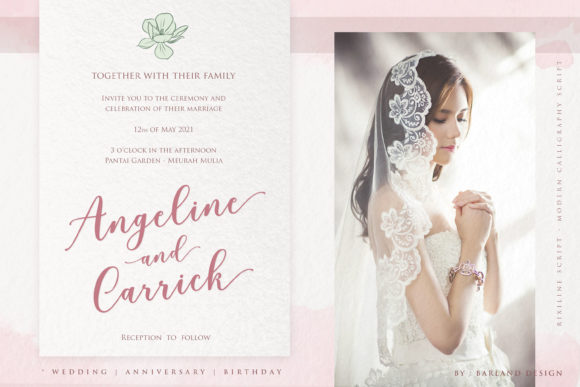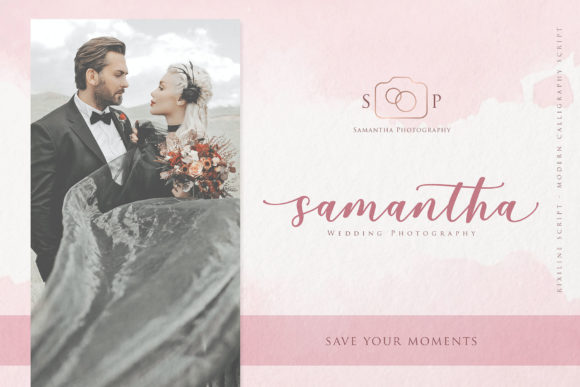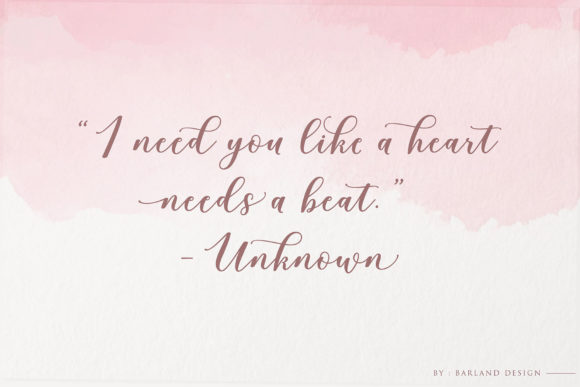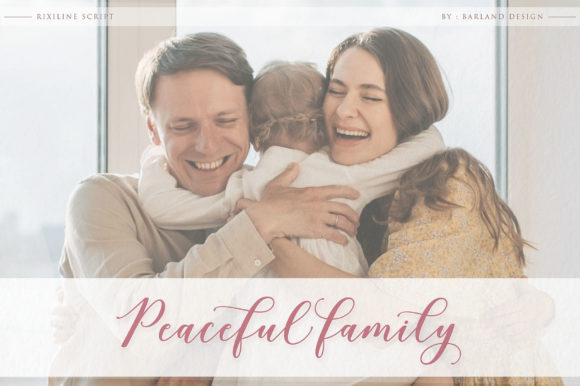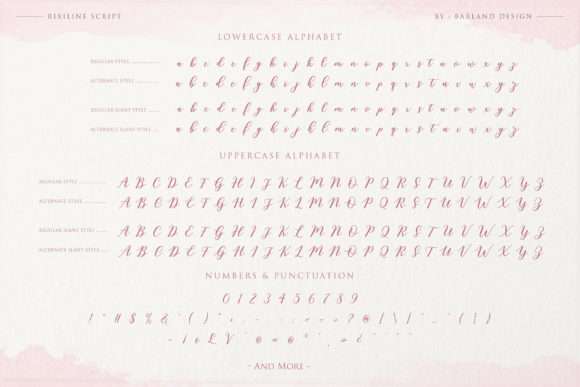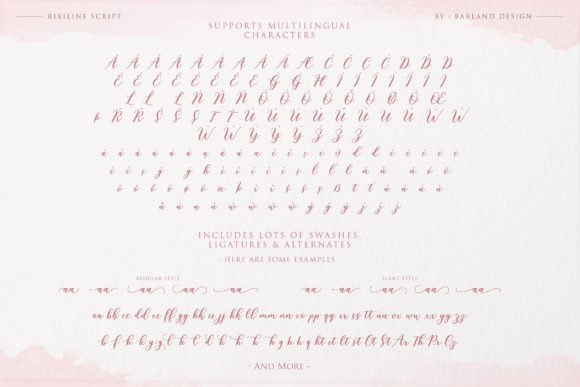
Introduction to Rixiline Script Font
Have you ever found yourself staring at a blank page, eager to bring a creative project to life, but struggling to find the perfect font to match your vision? We’ve all been there. As designers, we know how crucial the right font can be in elevating our work and making it truly stand out. That’s why we’re excited to introduce you to the Rixiline Script Font, a light and ravishing script font that’s sure to add a touch of magic to your next design.
This beautiful font features characters that dance along the baseline, creating a sense of movement and fluidity that’s perfect for a variety of design ideas. With its high-quality design and PUA encoding, you’ll have access to all of the gorgeous glyphs and swashes, making it easy to customize and add a personal touch to your work. Whether you’re working on a project with a transparent background or looking for a design resource to elevate your next creative project, the Rixiline Script Font is an invaluable addition to your toolkit.
Key Features of Rixiline Script Font
- Unique, hand-drawn design perfect for creative projects requiring a high-quality, elegant touch.
Honest Review: Rixiline Script Font
I recently had the chance to work with the Rixiline Script Font and I must say, it’s a great addition to any designer’s toolkit. The high-quality design is perfect for creative projects where a touch of elegance is needed.
Here are some of the things that work well with the Rixiline Script Font:
- ✨ Beautiful, cursive script that’s perfect for headings and titles.
- ✨ Highly legible, even at small font sizes.
- ✨ Supports transparent background, making it easy to use in conjunction with other design elements.
- ⚠️ Limited character set, which may not be suitable for long blocks of text.
- ⚠️ Not suitable for use in small sizes or on low-resolution displays.
Overall, I’m really impressed with the Rixiline Script Font. It’s a great free download that’s perfect for designers looking to add some flair to their creative projects. It’s definitely a valuable design resource that I’ll be using again in the future.
The Rixiline Script Font is a high-quality design resource perfect for creative projects that require a touch of elegance and sophistication. With its unique, handwritten style, this font is ideal for projects that need a personal and exclusive feel.
Getting the Most Out of the Font
To get the most out of the Rixiline Script Font, try using it on a transparent background to create a beautiful, layered design. You can also use it in combination with other fonts to add depth and interest to your project.
The Rixiline Script Font is perfect for a variety of projects, including:
- Brand logos and marketing materials
- Artistic prints and posters
Alternatives to Rixiline Script Font
Great Vibes Script
Great Vibes Script is a high-quality, elegant script font perfect for creative projects that require a touch of sophistication. It’s ideal for wedding invitations, branding, and advertising materials. With its transparent background, it’s easy to place over any image or design element. Great Vibes Script is a popular alternative to Rixiline Script Font for designers who want a more refined look.
Carolyna Pro is a modern script font designed for creative projects that demand high quality and attention to detail. It’s perfect for logos, packaging, and editorial design. With its free download option, designers can experiment with Carolyna Pro without breaking the bank. While it has a similar feel to Rixiline Script Font, Carolyna Pro offers a more polished and sophisticated look.
Alex Brush is a beautiful script font ideal for creative projects that require a personal touch. It’s perfect for branding, advertising, and editorial design. With its elegant and refined look, Alex Brush is a great alternative to Rixiline Script Font for designers who want to create a lasting impression. Its transparent background makes it easy to integrate with any design element.
Q: Can I use the Rixiline Script Font for a high-quality design project?
Yes, the Rixiline Script Font is designed to deliver high-quality results, making it perfect for design projects that require attention to detail and a professional finish. With its unique style and high-resolution design, you can create stunning visuals that will elevate your project.